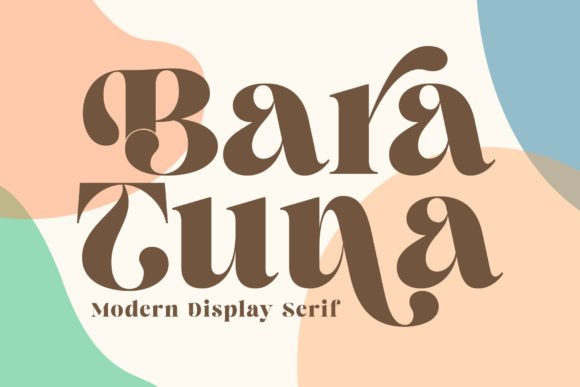
Introducing Baratuna Font: Elevate Your Designs with Modern Elegance
In the world of typography, a font can make all the difference in the aesthetic and effectiveness of a design. For designers and crafters looking to add a touch of sophistication and uniqueness to their work, Baratuna Font is an exceptional choice. This modern-style serif font is crafted with precision and attention to detail, featuring beautiful curves that exude elegance and refinement.
What Makes Baratuna Font Special?
Baratuna Font stands out from the crowd with its distinctive characteristics. One of its key features is the inclusion of alternative characters and ligatures. These elements allow designers to add a personal touch to their work, creating a sense of individuality and flair. Whether you’re working on branding designs, logos, greeting cards, or title packaging, Baratuna Font provides the versatility and style to make your project shine.
The versatility of Baratuna Font makes it suitable for a wide range of design applications. Here are some of the ways you can utilize this exceptional font:
- Branding Designs: Establish a strong brand identity with a font that communicates sophistication and modernity.
- Logos: Create memorable and impactful logos that stand out in any industry.
- Greeting Cards: Add a touch of elegance to your greeting cards, making them perfect for special occasions.
- Title Packaging: Enhance your product packaging with a font that draws attention and conveys quality.
- Other Designs: From digital content to print materials, Baratuna Font can elevate any design project.
The Benefits of Using Baratuna Font
Choosing Baratuna Font for your design projects comes with several benefits:
- Unique Style: Baratuna Font offers a modern and distinctive style that sets your work apart.
- High Versatility: Its wide range of applications makes it a valuable addition to any designer’s toolkit.
- Ease of Use: Designed with the user in mind, Baratuna Font is easy to integrate into various design projects.
- Customization: With alternative characters and ligatures, you have the flexibility to customize your designs.
- Experiment with Features: Take advantage of alternative characters and ligatures to customize your design.
Baratuna Font is a powerful tool for designers and crafters aiming to infuse their work with a modern and elegant touch. Its unique features, versatility, and ease of use make it an excellent choice for a variety of design applications. By incorporating Baratuna Font into your projects, you can elevate your designs and make them truly unforgettable. So why wait? Use Baratuna Font now and witness the transformation in your work!
Whether you’re a professional designer or a crafting enthusiast, Baratuna Font is sure to become an indispensable part of your creative process. Its ability to blend modern style with classic elegance makes it a rare find in the world of typography. Don’t miss out on the opportunity to make your designs even more amazing with Baratuna Font.